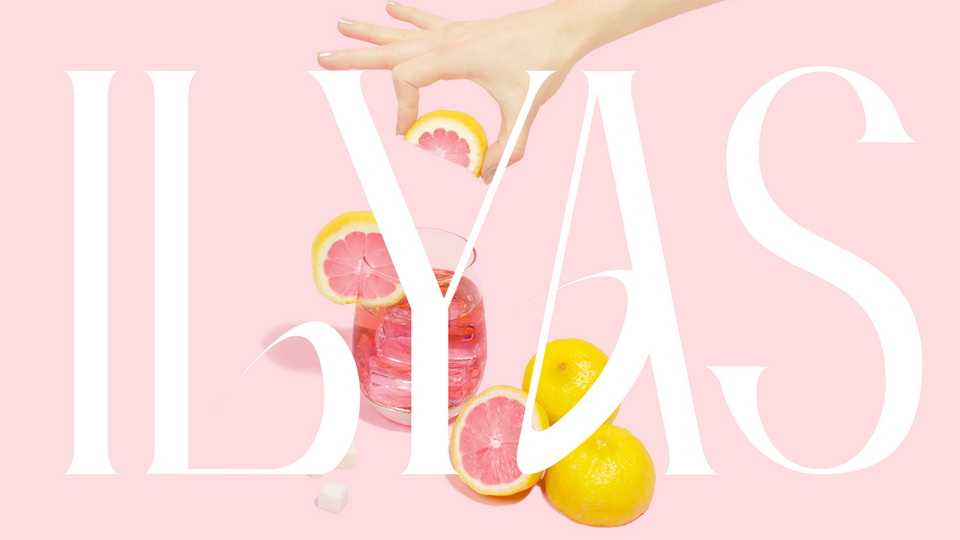
Download Ilyas font, a unique serif display typeface inspired by strong decorative elements. With its sharp lines and condensed style Ilyas is perfect for big headlines, or used as a separate graphic element.